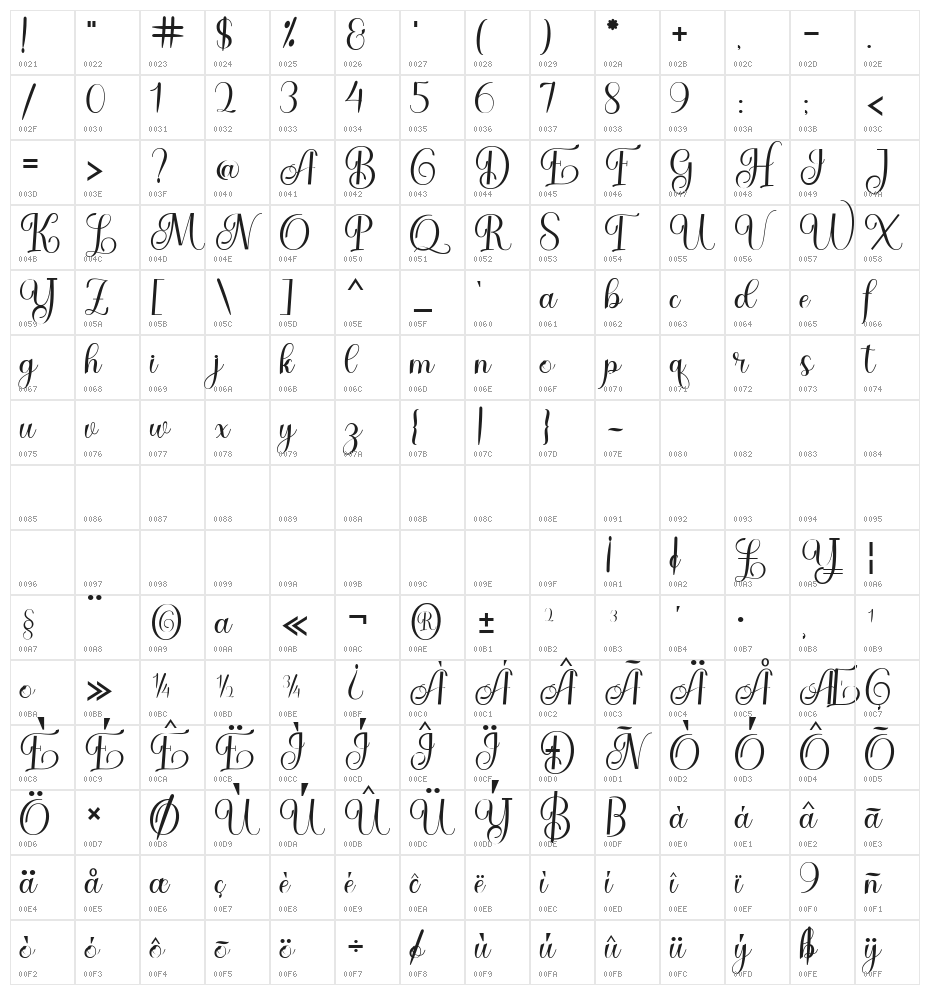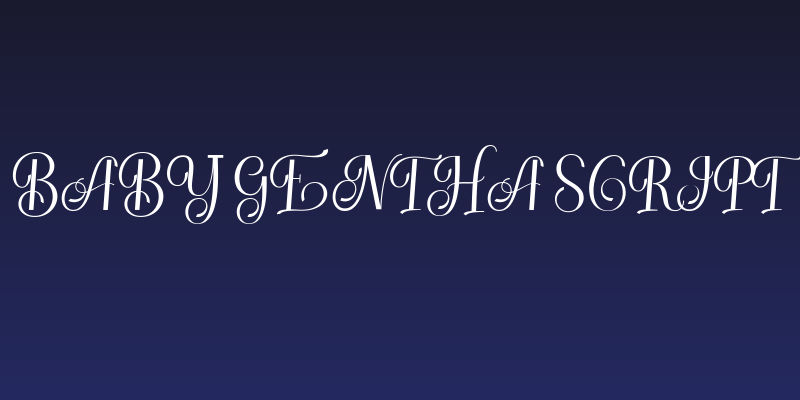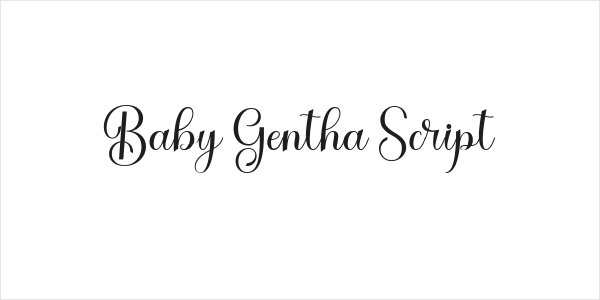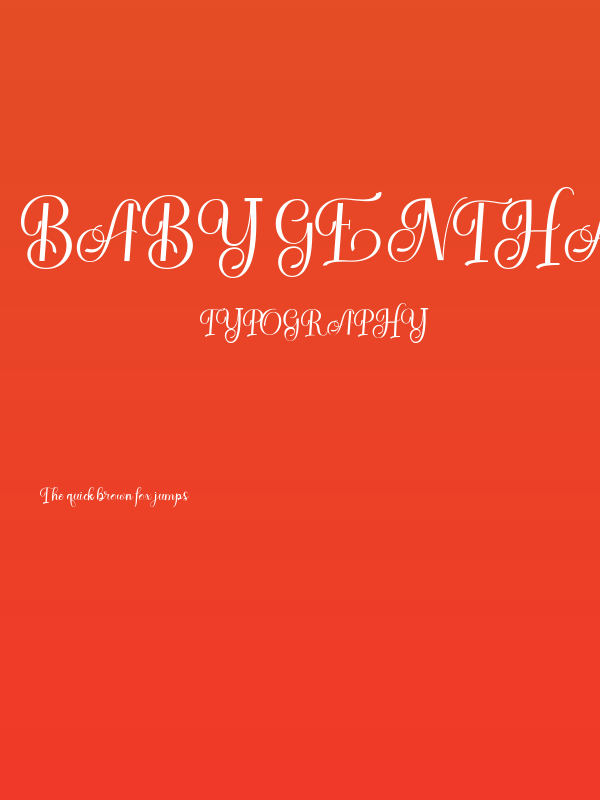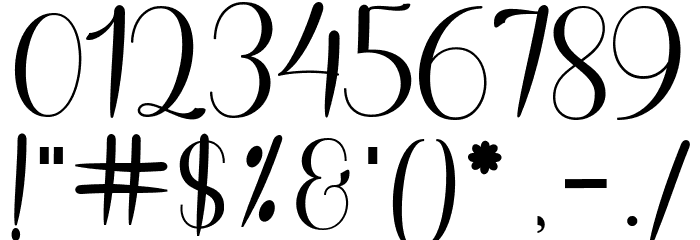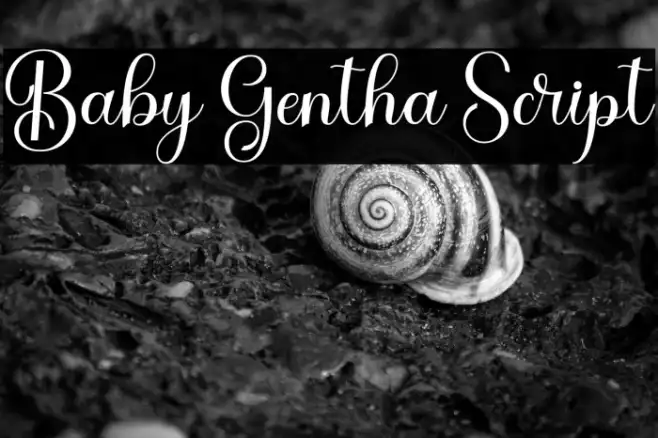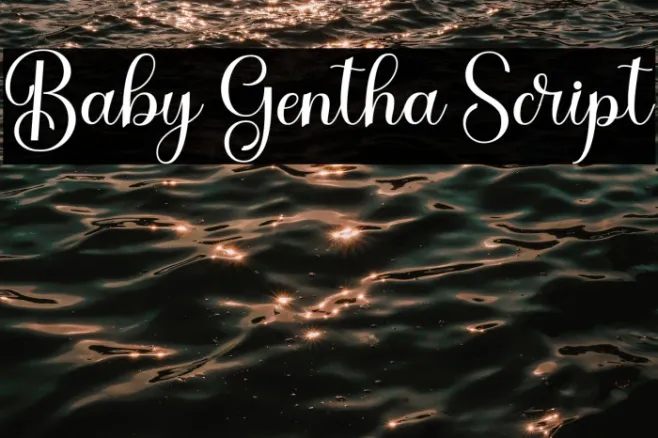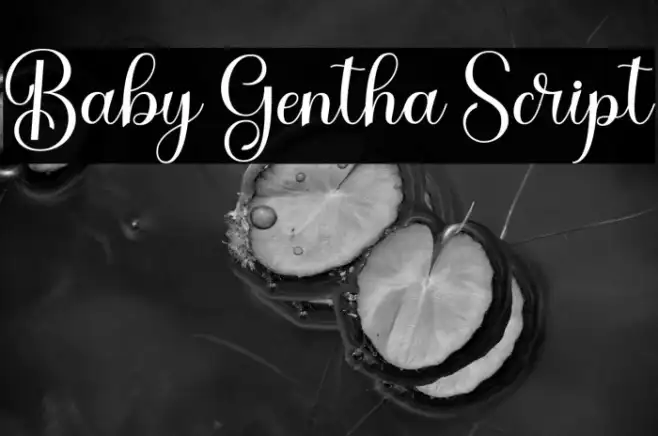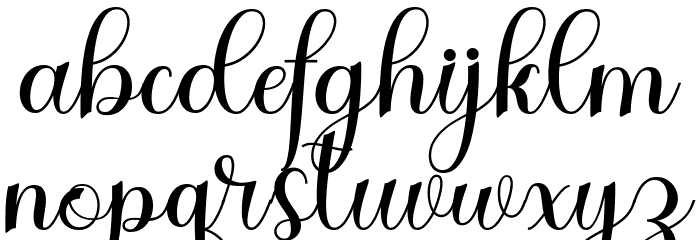
Baby Gentha Script Font
Baby Gentha Script Description
This elegant script font features a flowing, cursive style with a sophisticated flair. The uppercase letters are adorned with delicate loops and swirls, giving them a graceful appearance. The lowercase letters maintain a consistent flow, with smooth connections between characters, enhancing readability. The numerals are stylishly designed, complementing the overall aesthetic of the font. Special characters are crafted with the same attention to detail, ensuring a cohesive look across all elements. This font exudes a sense of elegance and charm, making it suitable for a variety of creative projects.